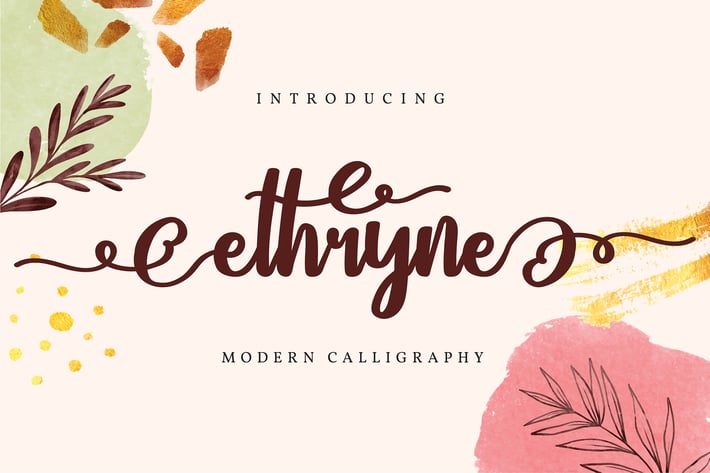
Ethryne | Modern Calligraphy Font
Ethryne | Modern Calligraphy Font with a calligraphy style, So beautiful on invitation like greeting cards, branding materials, business cards, quotes, posters, and more!